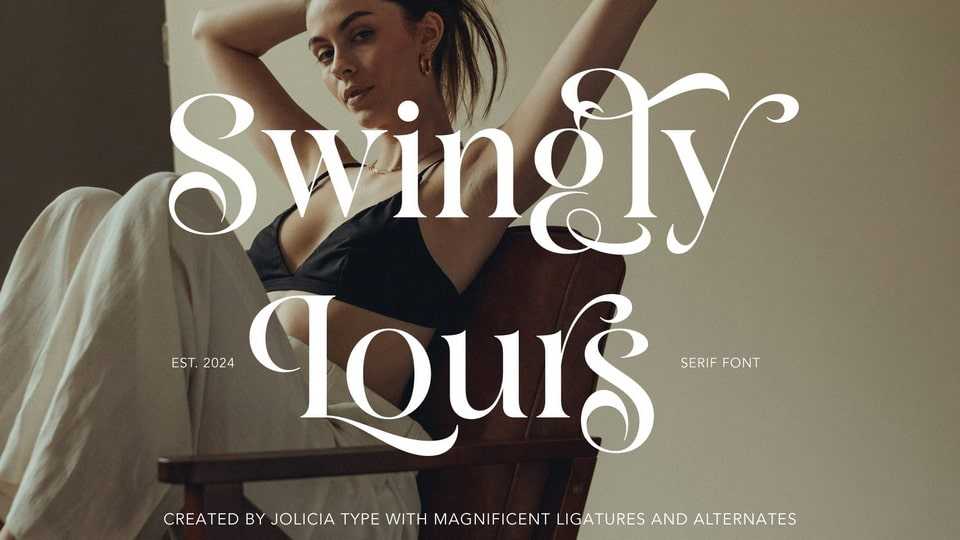
Download Swingly Lours font, the epitome of serif elegance enriched with magnificent ligatures and a plethora of alternates. This font transforms your typography into a visual symphony.